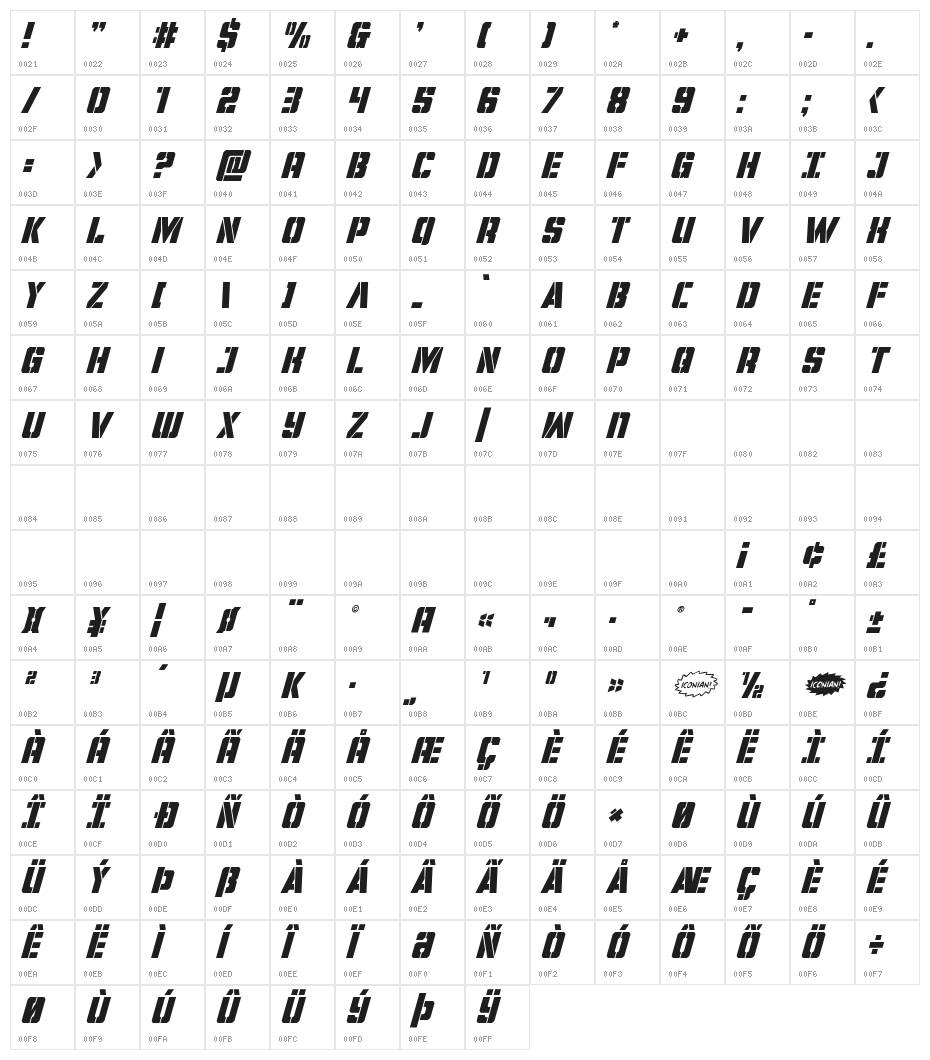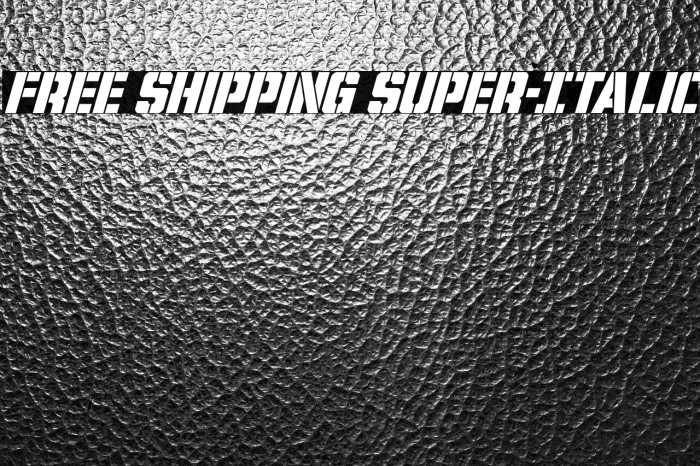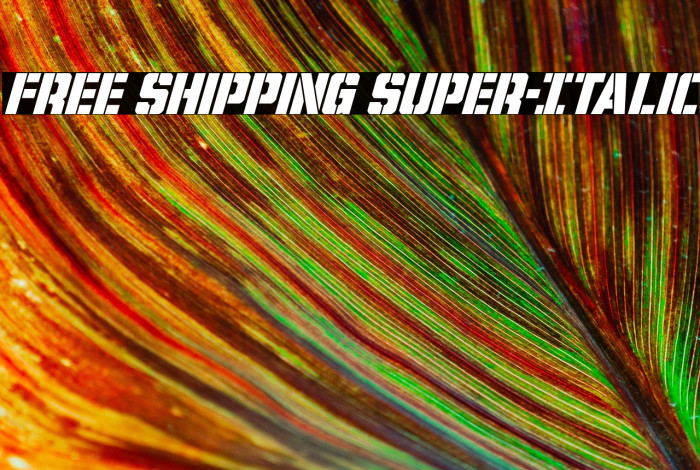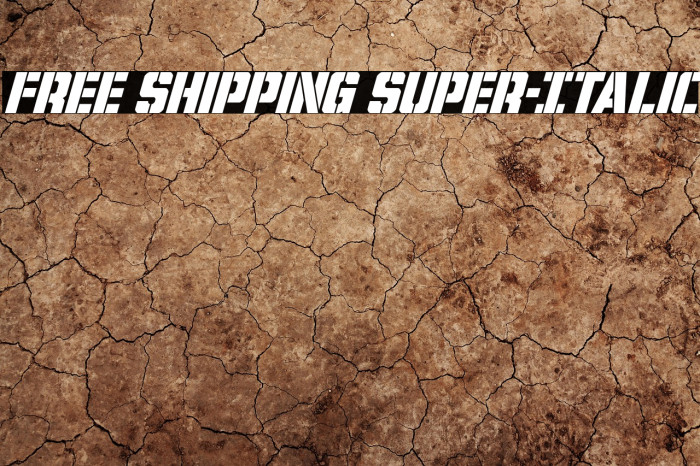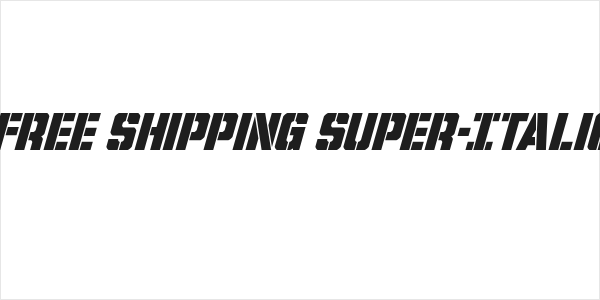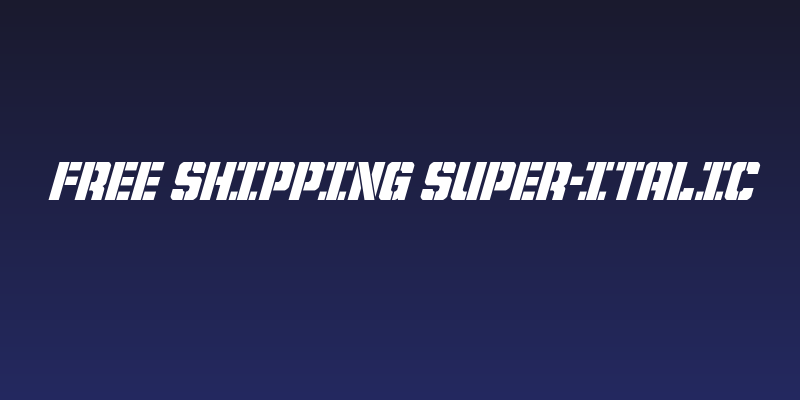
Free Shipping Super-Italic Font
Free Shipping Super-Italic Description
This font features a bold, italicized style with a distinct slant, giving it a dynamic and energetic appearance. The characters are blocky and robust, with sharp angles and a strong presence. The uppercase and lowercase letters maintain a consistent weight, contributing to a cohesive look. The numbers and special characters are designed to match the boldness of the alphabet, ensuring uniformity across all text. The font's design is reminiscent of industrial or sports-themed typography, making it suitable for impactful and attention-grabbing headlines.
| Proposed Projects | Ideal for sports branding, dynamic posters, and industrial-themed designs. |